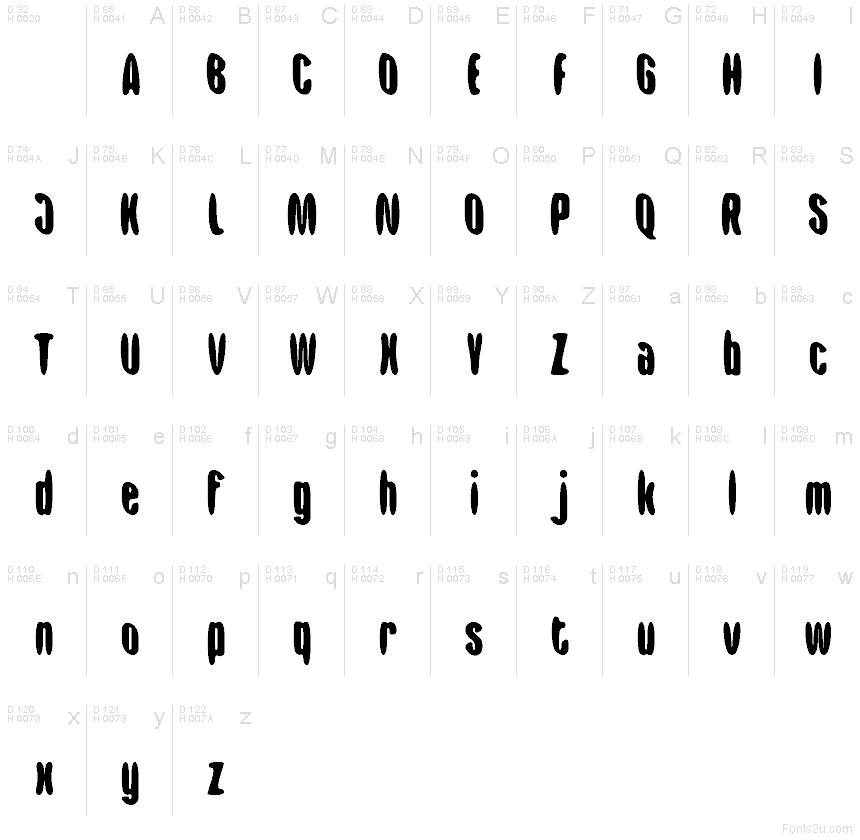
CSRecantDrawn-Regular Demo
CS Recant Drawn font by Craft Supply Co. is a free bold brush display font. Part of the CS Recant family, it stands out with chunky, inky strokes and soft, rounded edges that feel hand‑painted yet steady. The high x‑height and tight, bouncy rhythm give headlines a chewy, tactile presence without losing clarity, turning simple words into graphic shapes that pop.
Using CS Recant Drawn, your streetwear logos, craft packaging, cafe menus, poster titles, social posts, stickers, and event flyers gain an approachable punch. This free font loves large sizes where its squishy curves breathe. For balance, pair it with a clean sans for body copy, and let CS Recant Drawn carry the headline weight.
CS Recant Drawn Demo